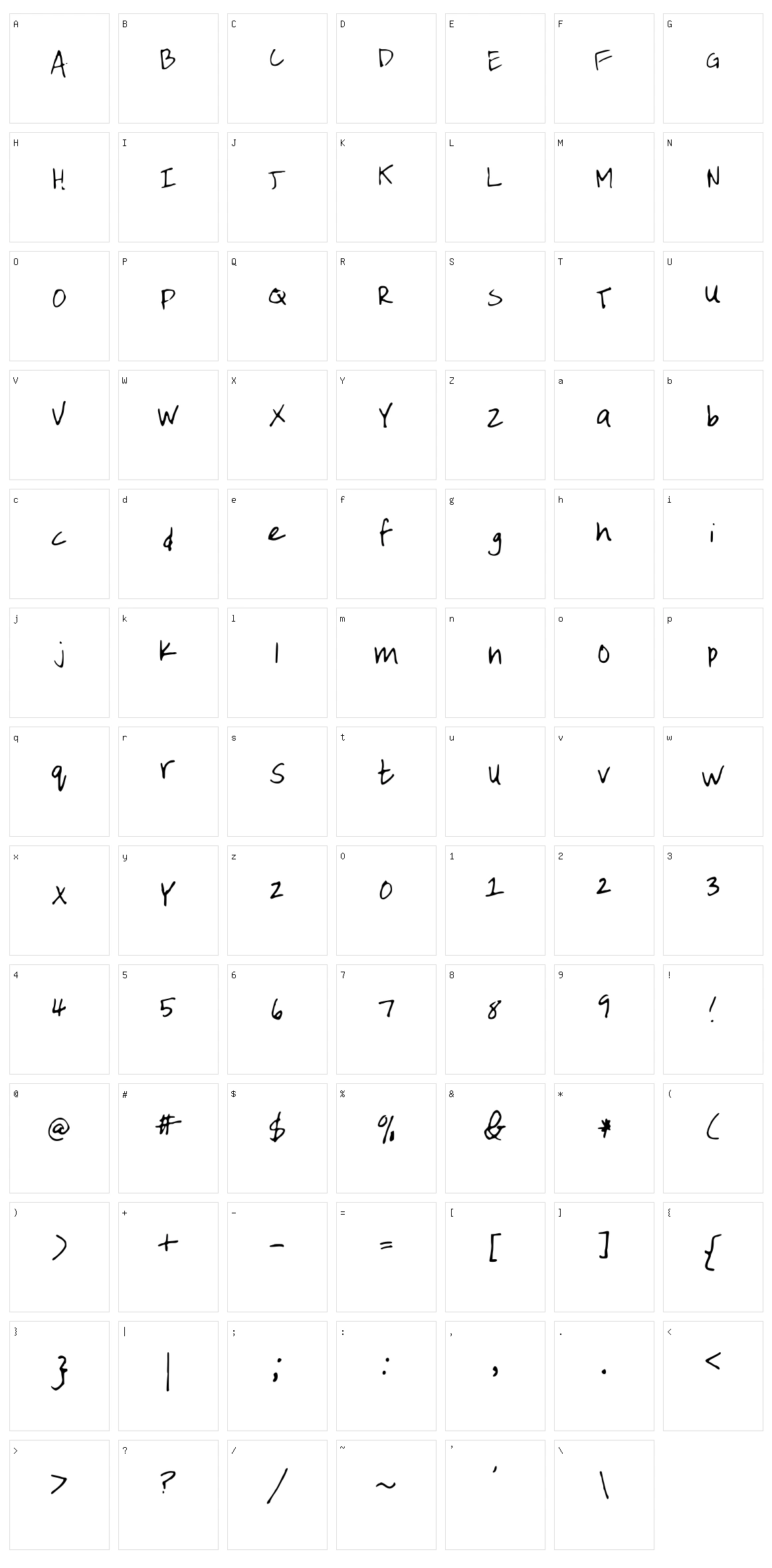
The free font Emilee Handwriting is carefully designed by Emilee Graverson, showcasing a thoughtful balance of creativity and usability and falls under the Script font style. When you download the ZIP file, it contains only 12.29 KB of font files, making it lightweight and quick to download. Please review the license details below to understand permitted usage and distribution rights. If license information is not available, we recommend using this font for personal projects only or contacting the author directly for commercial usage permissions.